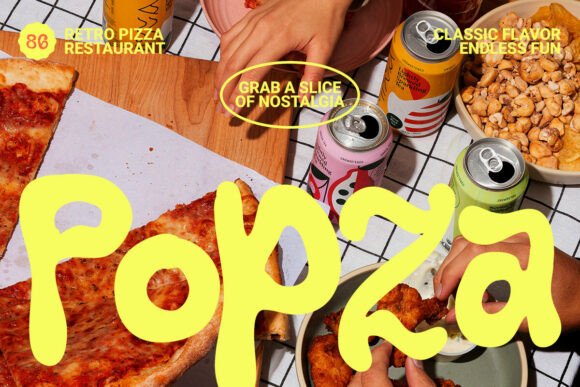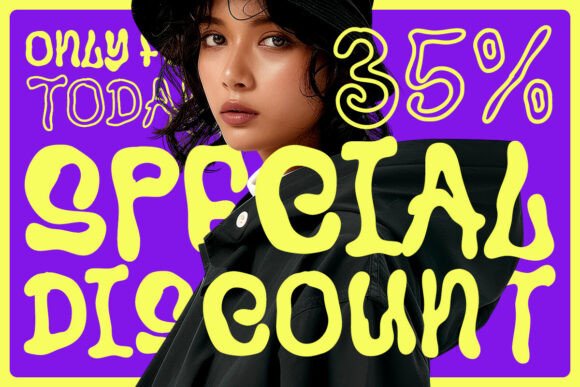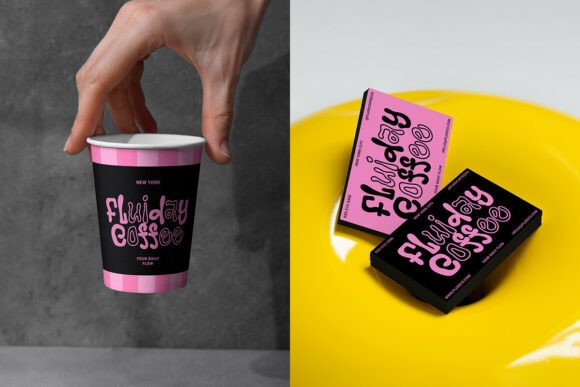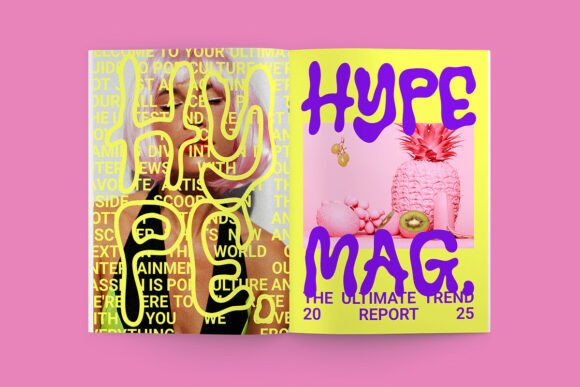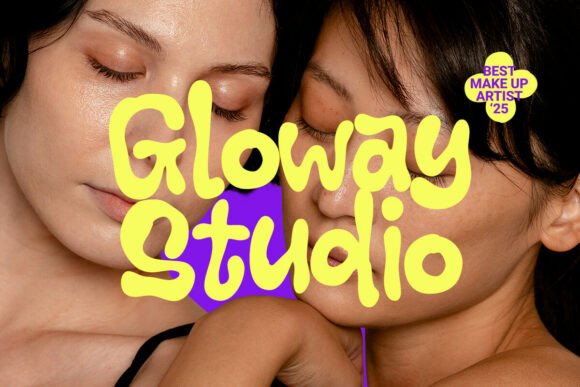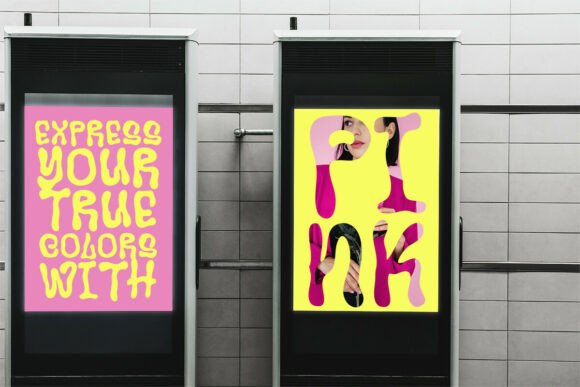
Introduction to Happytale Font
As a designer, have you ever been stuck in a creative rut, struggling to find the perfect font to bring your idea to life? I know I have. It’s that moment when you need something to spark inspiration and transport your design from ordinary to extraordinary. For me, it was discovering the Happytale Font, a playful liquid bubble display font that’s been a game-changer in my design process.
The Happytale Font is more than just a pretty face; it’s a valuable resource for designers looking to add a touch of whimsy and charm to their creative projects. With its bold, rounded shapes and flowing curves, it’s perfect for cheerful projects, children’s themes, branding, packaging, posters, and eye-catching headlines. Whether you’re working on a free download or a high-quality design, the Happytale Font is sure to make a lasting impression.
Key Features of Happytale Font
- High-Quality Design: Happytale Font is a beautifully crafted design resource perfect for creative projects, offering a unique and eye-catching aesthetic.
Honest Review: Happytale Font
I recently stumbled upon the Happytale Font and I must say, it’s been a game-changer for my creative projects. This free download has been a lifesaver when it comes to adding a touch of whimsy to my designs.
- High-quality design: The Happytale Font is meticulously crafted with attention to detail, resulting in a beautiful, unique font that elevates any design.
- Transparent background: This feature allows for seamless integration with any design element, giving me complete control over the look and feel of my projects.
- Great for creative projects: Whether I’m working on a children’s book, a wedding invitation, or a marketing campaign, the Happytale Font is always a great choice.
- Limited character set: While the font is stunning, I wish it had a more comprehensive character set to accommodate a wider range of languages.
- Not ideal for complex texts: The Happytale Font is perfect for short quotes or headings, but it can be challenging to read when used for longer blocks of text.
Overall, I’m thoroughly impressed with the Happytale Font and would highly recommend it to designers looking for a unique and high-quality design resource.